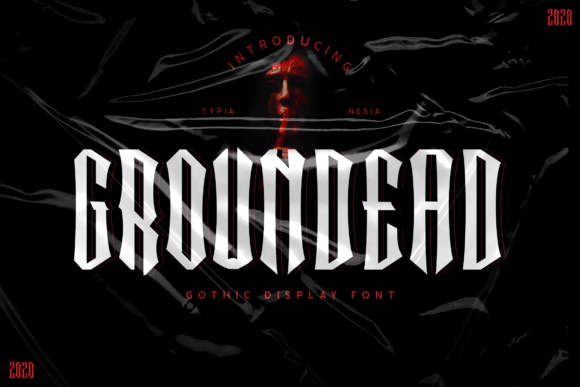
Step into the world of Groundead, a blackletter font that exudes boldness and drama. Its captivating lines dance before your eyes like a symphony of shadows, leaving an unforgettable impression on every design. It's not just a font; it's an artistic journey that transforms your creations into masterpieces.
Unleash your musical soul with Groundead, the perfect font for music enthusiasts. With its flowing strokes and rhythmic curves, Groundead captures the essence of music's enchanting notes. Imagine your music scores adorned with this font, each symbol and staff alive with character and emotion. Groundead is more than just a font; it's a mesmerizing melody frozen in time.
If you seek a font that commands attention, Groundead is your knight in shining armor. Its striking presence magnetizes viewers' gazes, making your designs burst forth from the digital realm and into the spotlight. Whether you're crafting logos, posters, or social media graphics, Groundead ensures your message resonates and lingers in the minds of your audience like a haunting symphony.
With Groundead, you unlock a world of infinite possibilities. Its versatility extends beyond music-inspired designs, embracing a vast array of creative endeavors. Unleash your imagination and let Groundead's powerful aura elevate your projects to new heights.
Crafted by the talented hands of Typia Nesia, Groundead is a font that speaks volumes. Its bold strokes and elegant curves tell a tale of passion, creativity, and unwavering determination. Experience the transformative power of Groundead and witness how ordinary designs morph into extraordinary masterpieces.